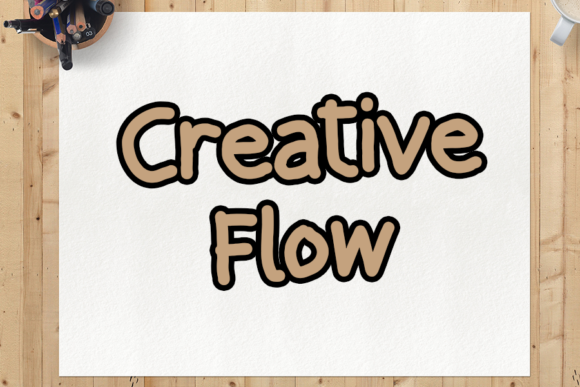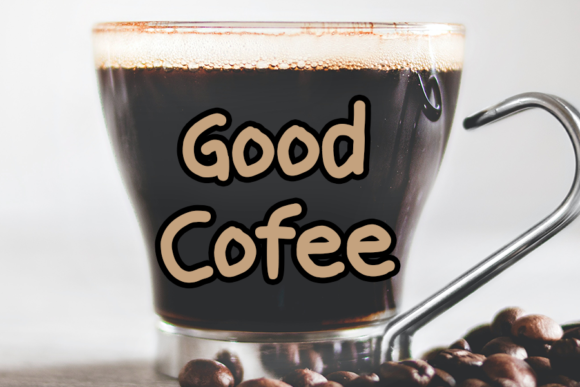
About Christmas Santa Font
Christmas Santa is a neat and simple handwritten font. It can easily be matched to an incredibly large set of projects, so add it to your creative ideas and notice how it makes them stand out!